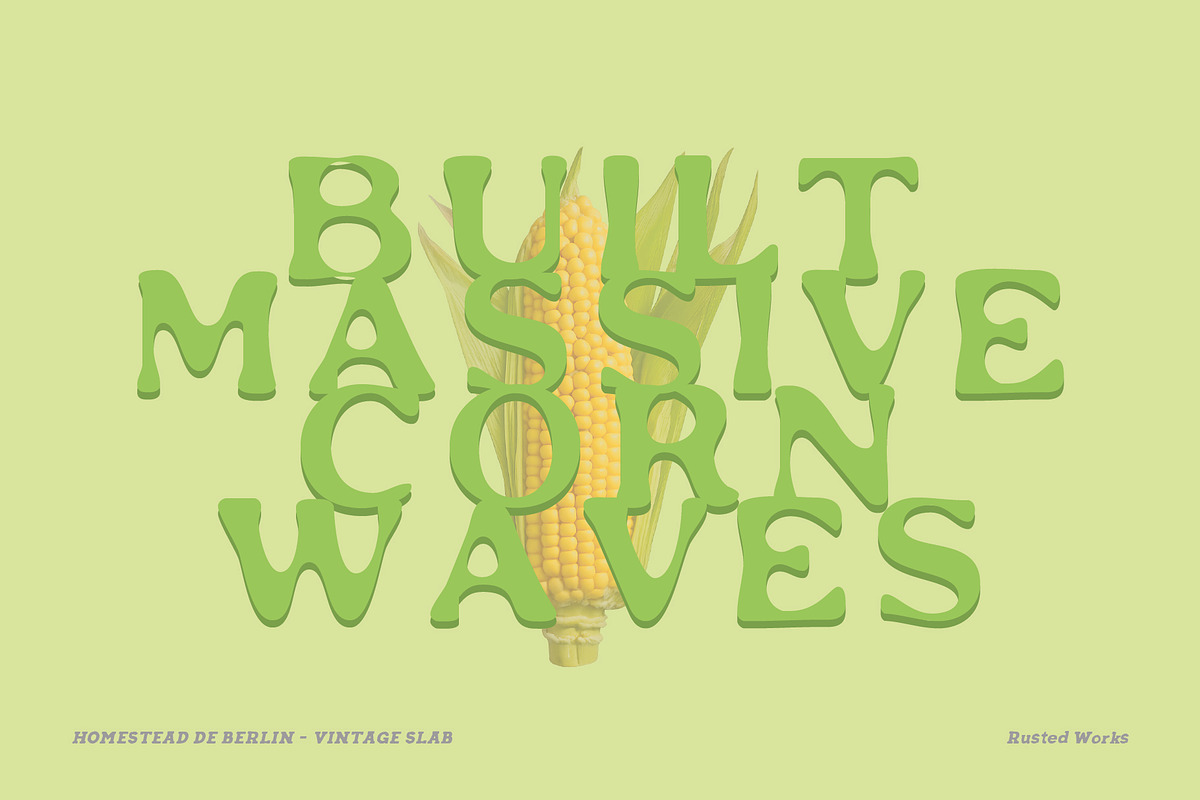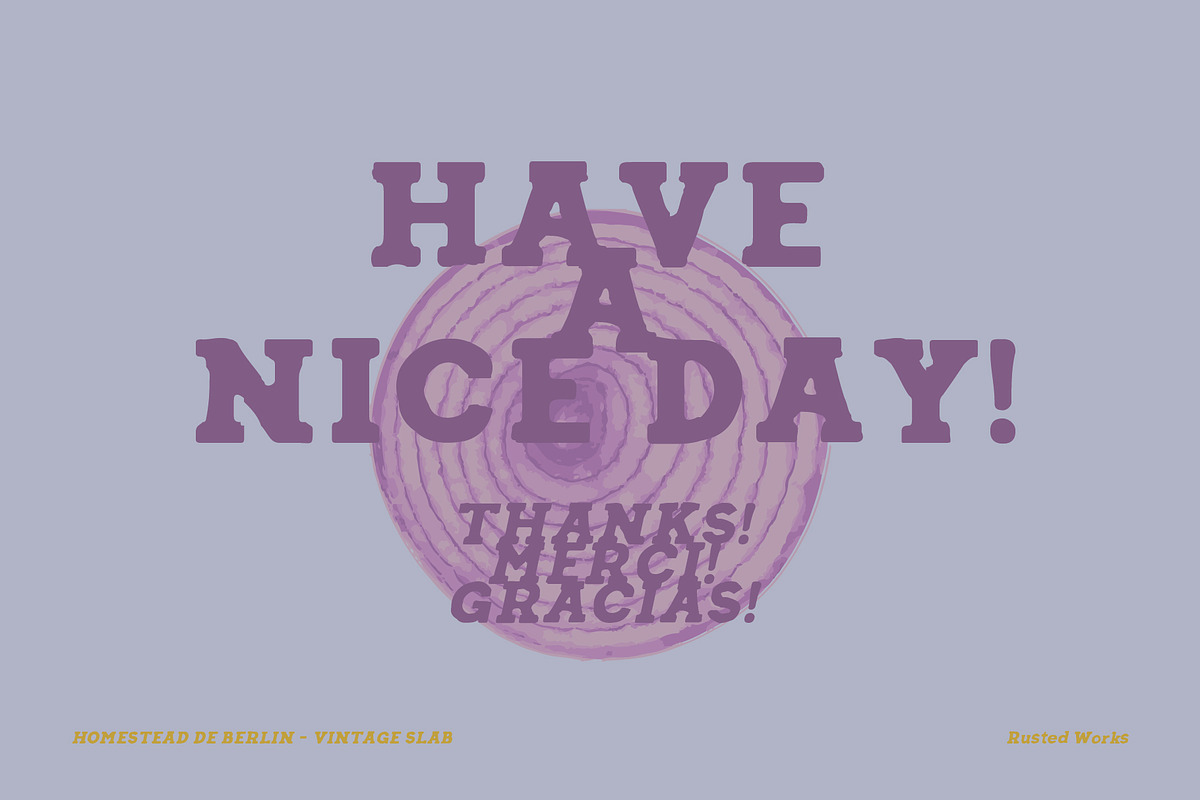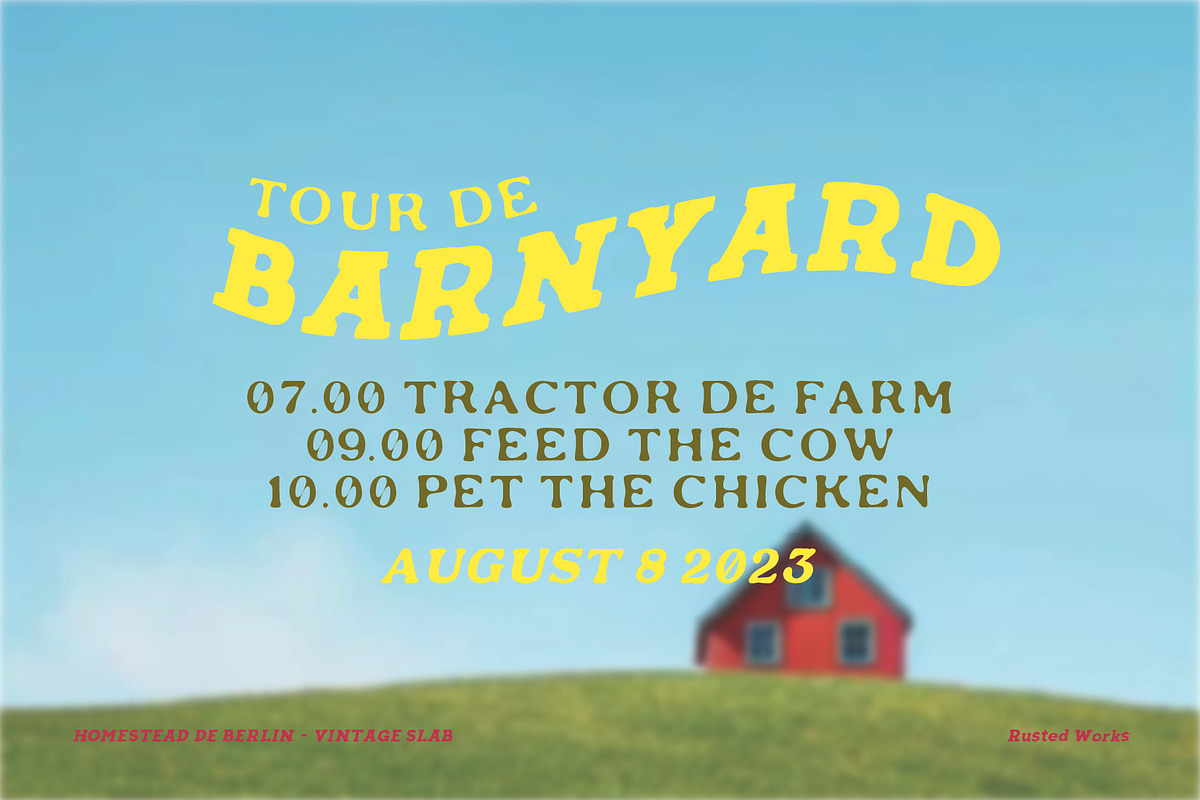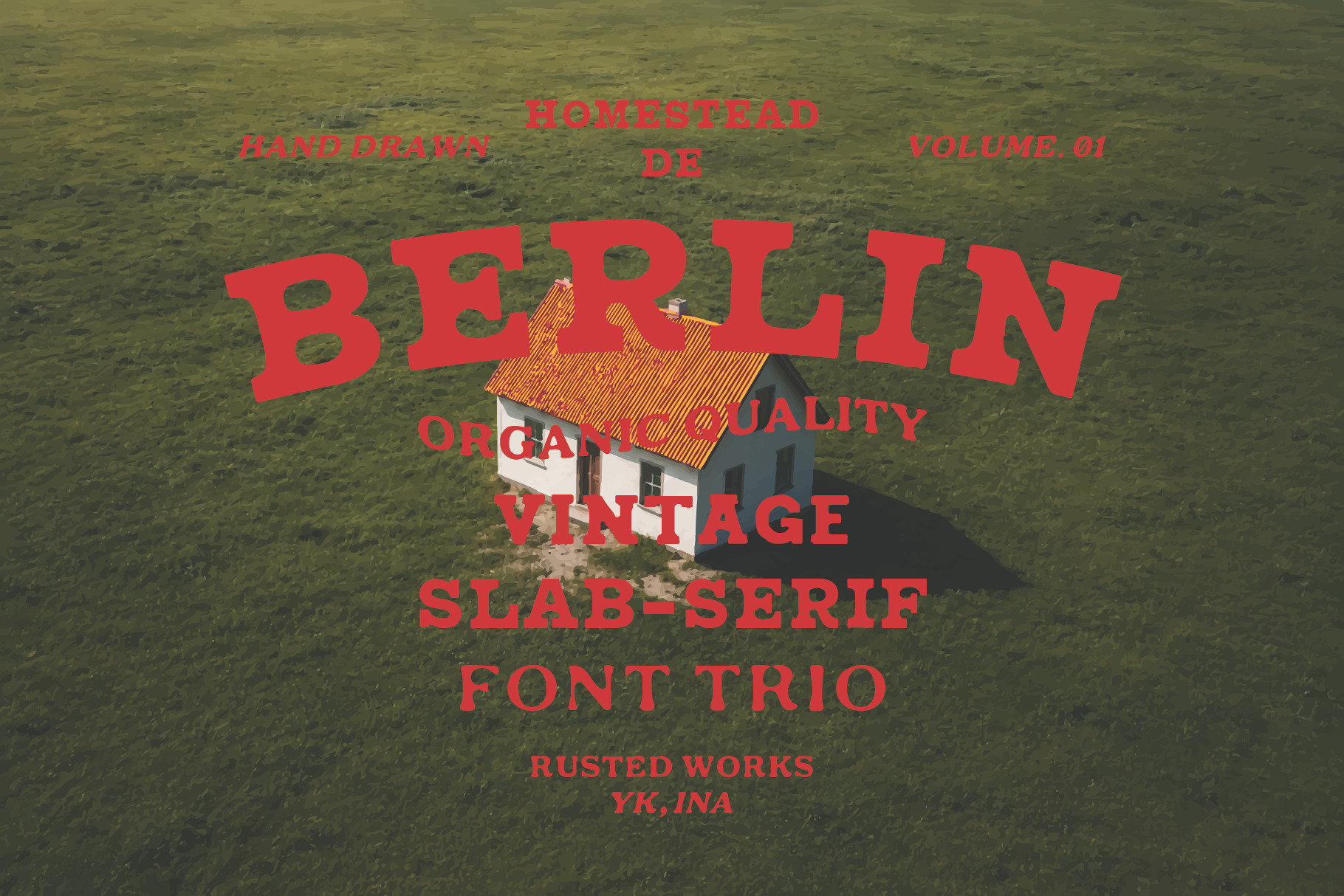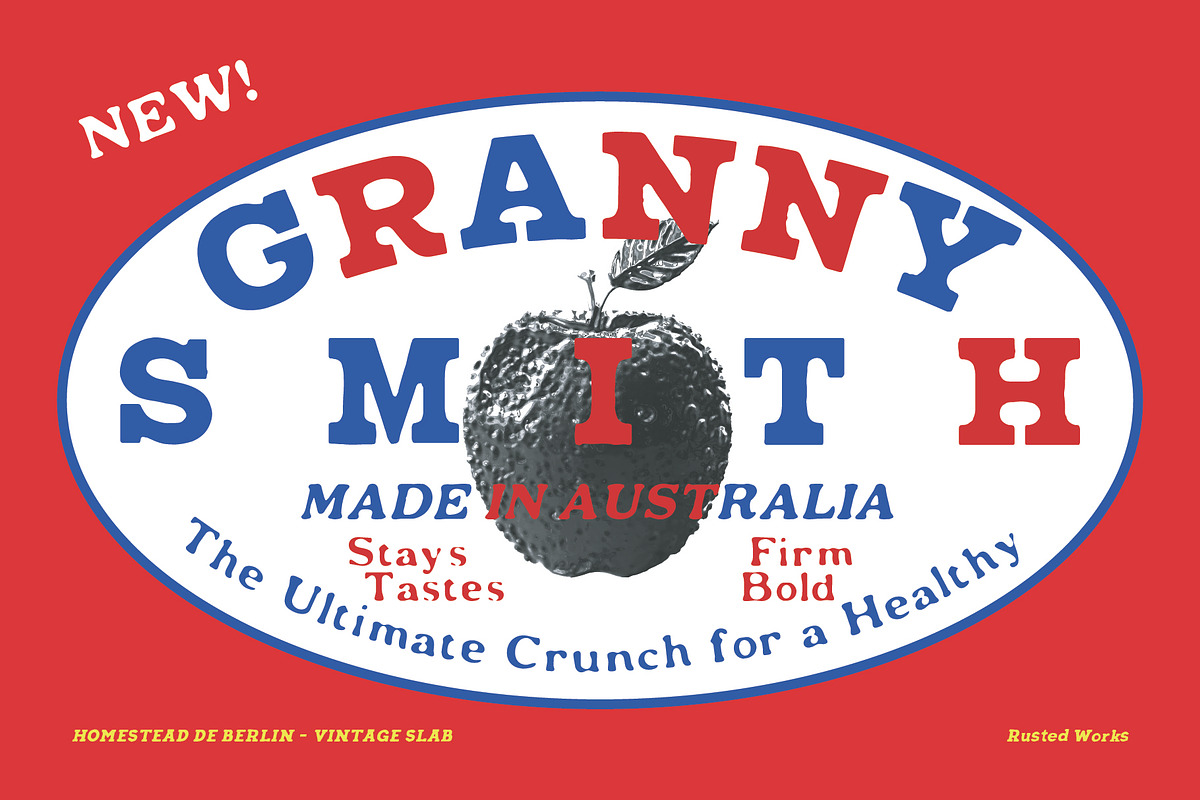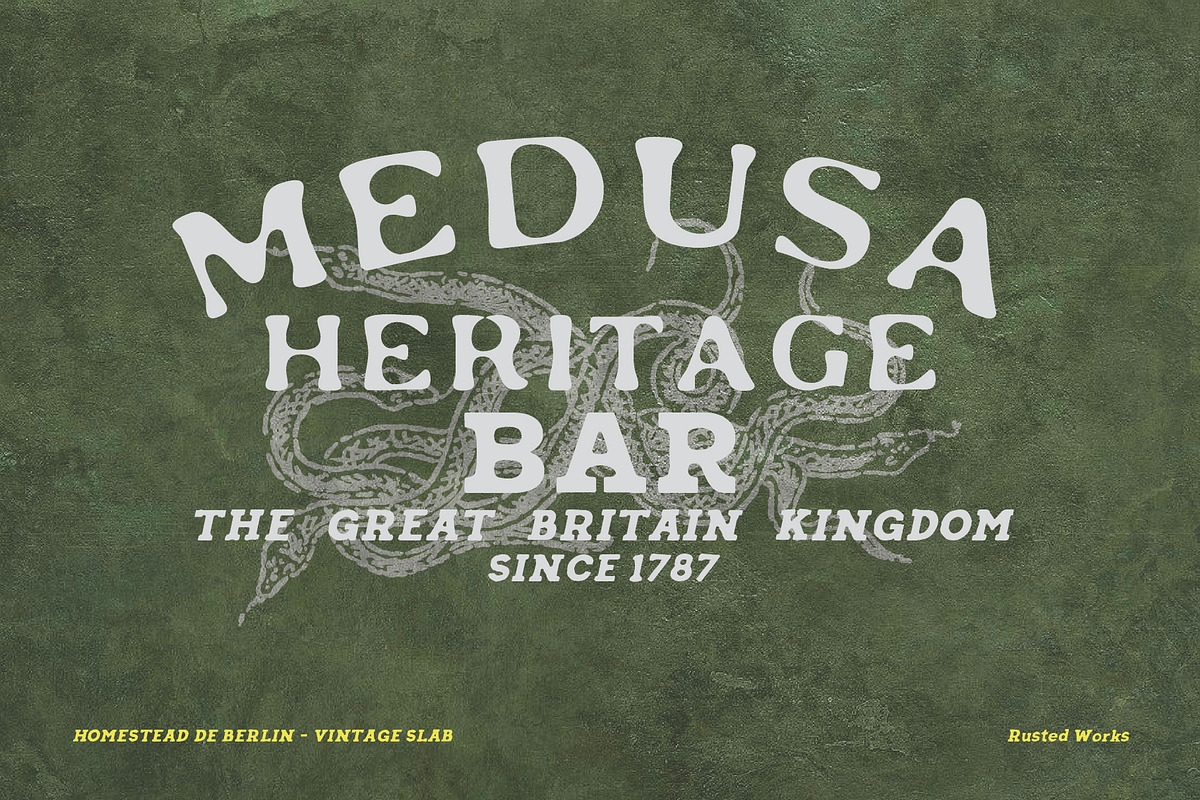
de Berlin - Vintage Slab Font Trio
**Homestead de Berlin **Inspired by vintage-retro homestead nostalgic vibes with a lil influence of pop cultures that make this font timeless.
This font fit perfectly for luxury, vintage, retro branding, posters and apparel design.